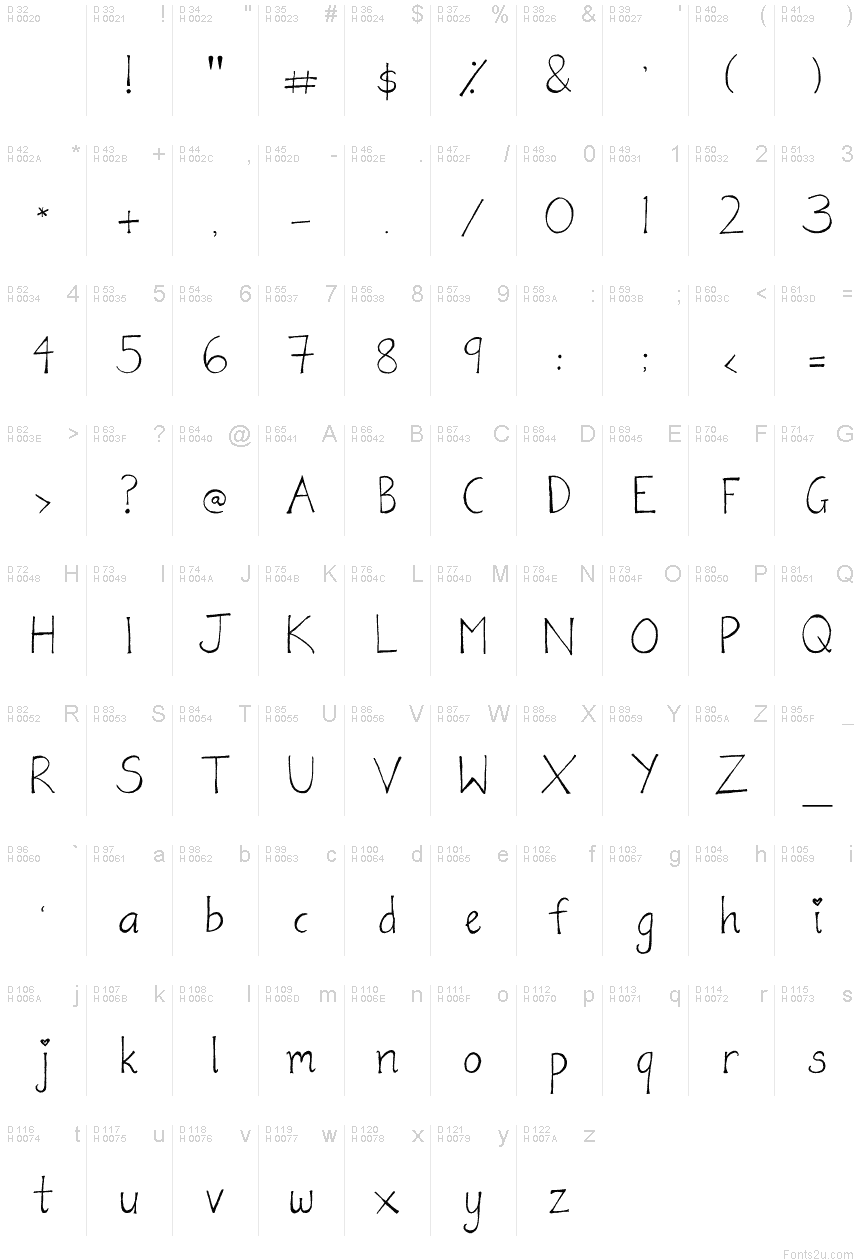
Nibble Diary is a free handwritten display font with thin, uneven strokes and the unguarded look of quick pen notes. Tall letters lean and wander, with loose loops, sharp joins, and shifts in stroke width that keep the writing handmade.
Publishing projects can use its diary-like manner for informal cover lines, children's activity books, and personal stationery. The scratched contours also belong in scrapbook graphics, especially beside doodles, taped photographs, or notebook textures. It is most convincing when a project needs lettering that looks written onto the page.